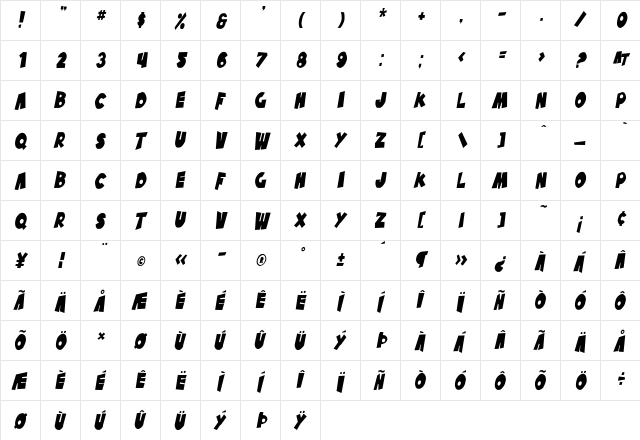
SF Pale Bottom Condensed Oblique Font Preview
Design Context for SF Pale Bottom Condensed Typeface
SF Pale Bottom Condensed is a composed and adaptable typeface that performs quietly and consistently across a wide range of design contexts. The slanted form adds forward momentum and visual energy. Its narrow stance lets it pack a punch even in space-constrained designs.
Pro Tip: Try SF Pale Bottom Condensed for annotation and caption copy alongside an upright companion — the contrast in angle creates a dynamic but ordered typographic system.